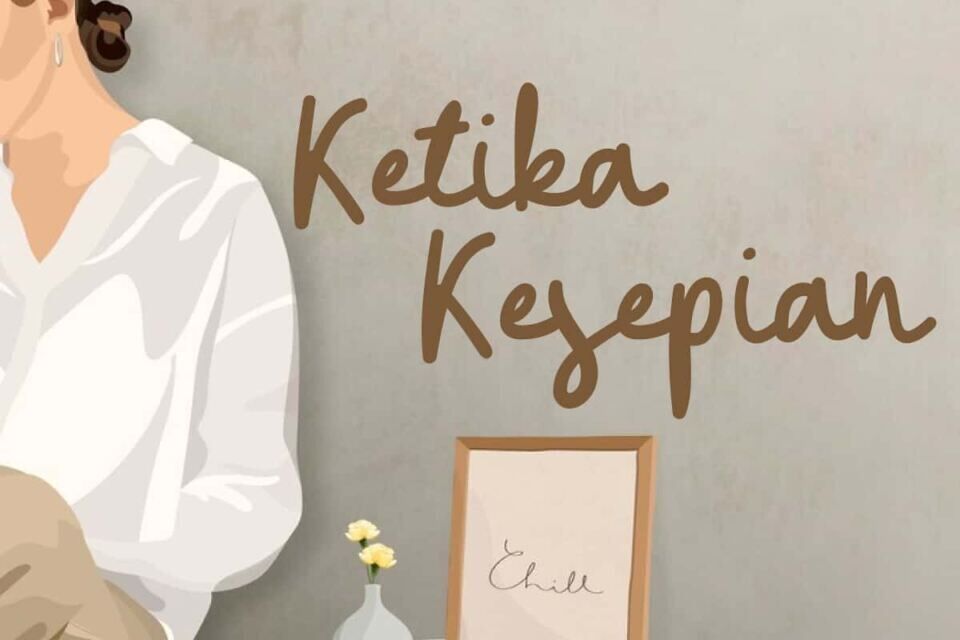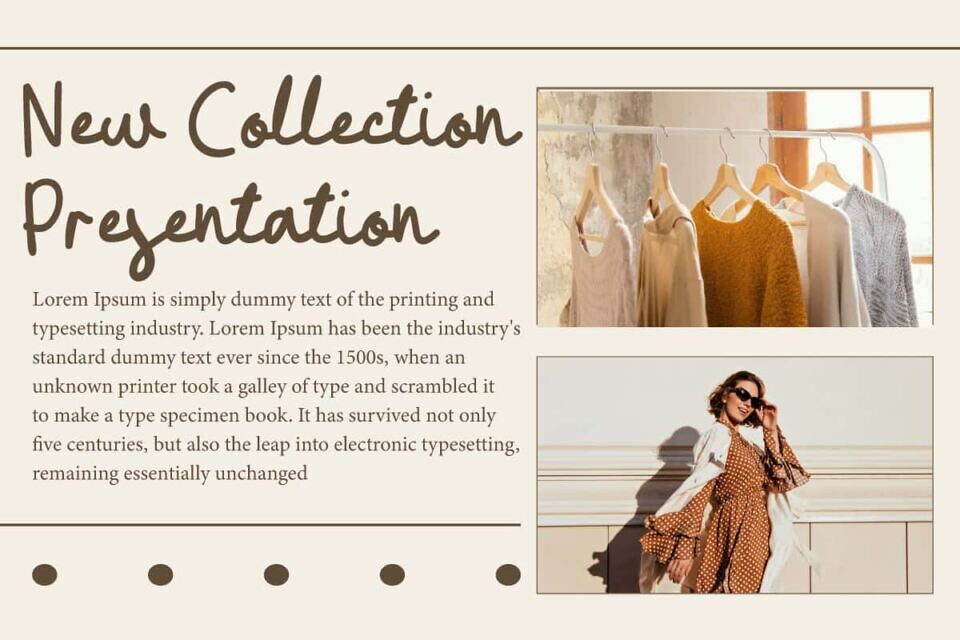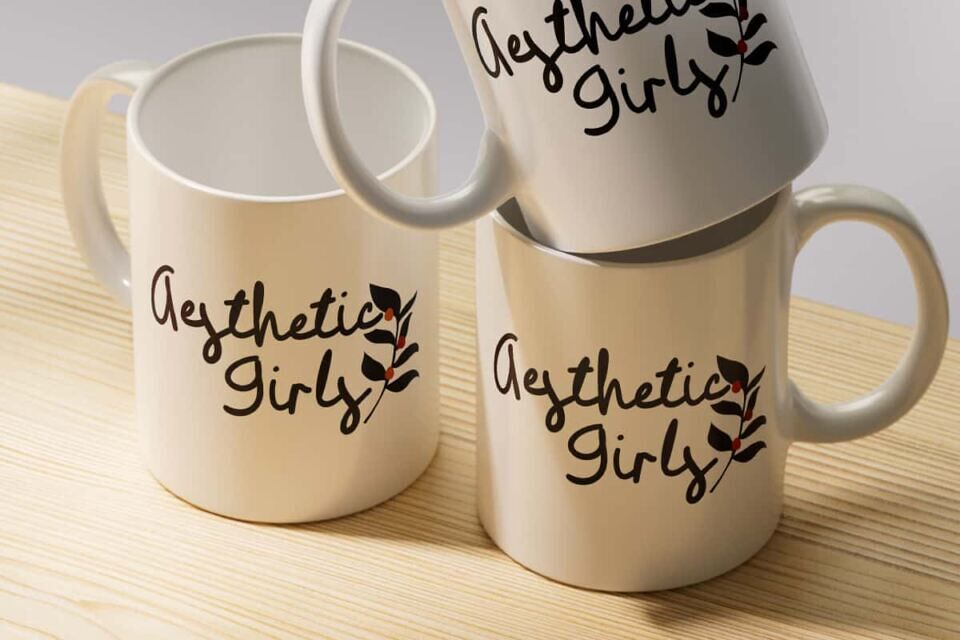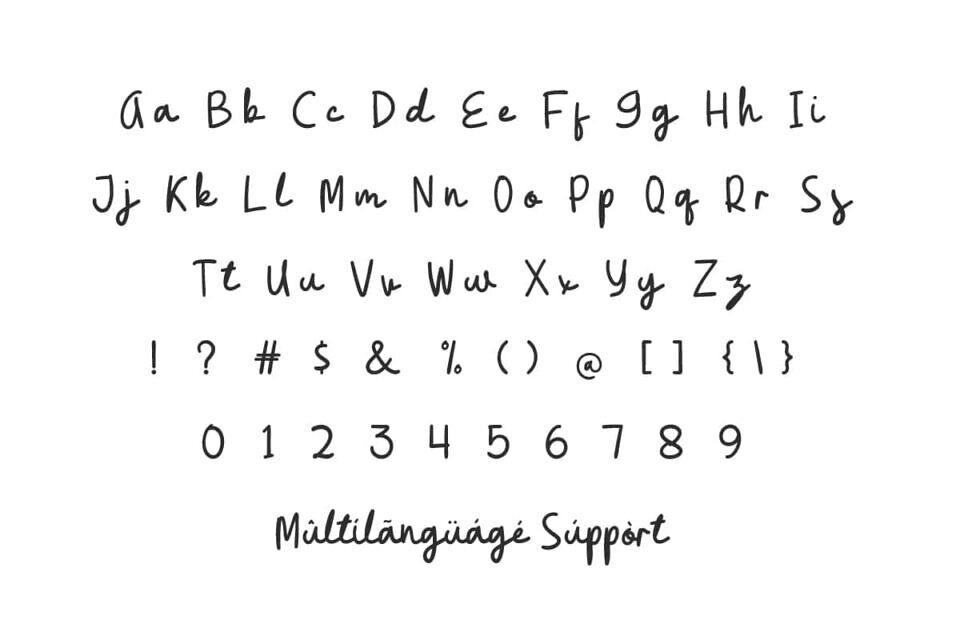
Ketika Kesepian Font is a relaxed a bold pen writing font handwriting font with an easy going touch, making it look like natural handwriting.
Perfect for banners, blogs, brochure, covers, custom mug, flyer, greeting card, headers, label, logos, mockup, quotes, social media post, stationery, sticker, template, title, website, and much more.